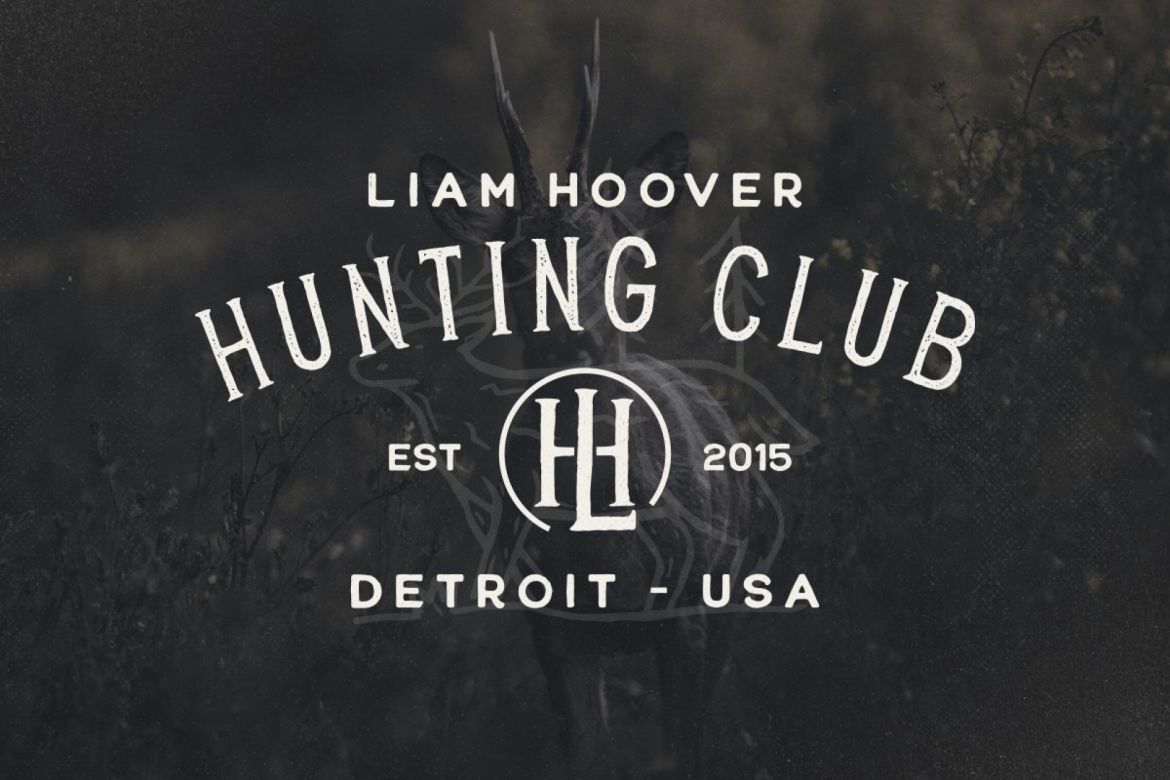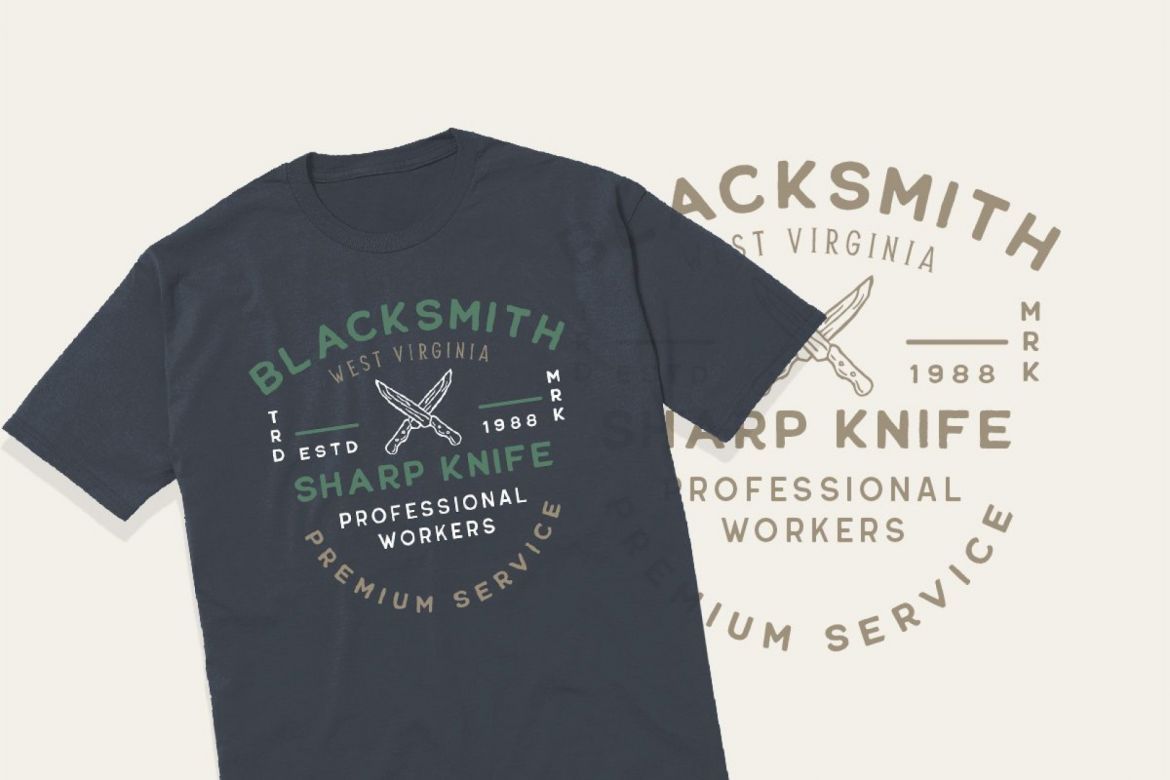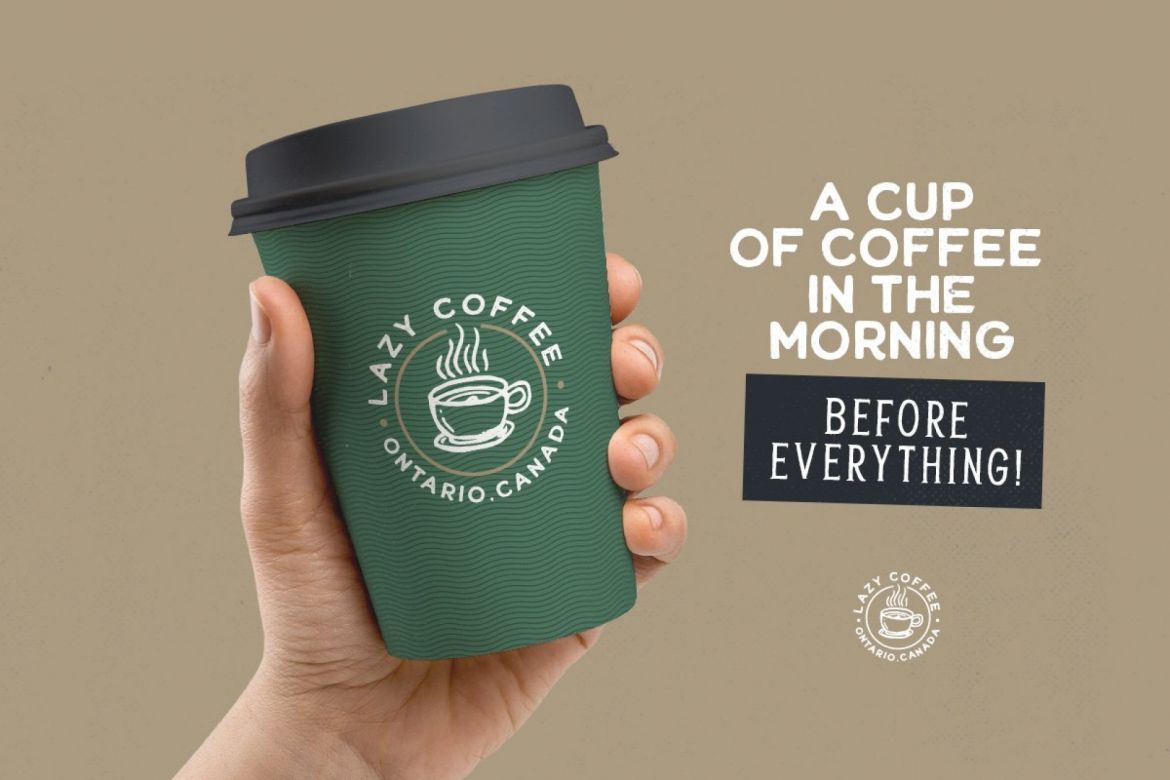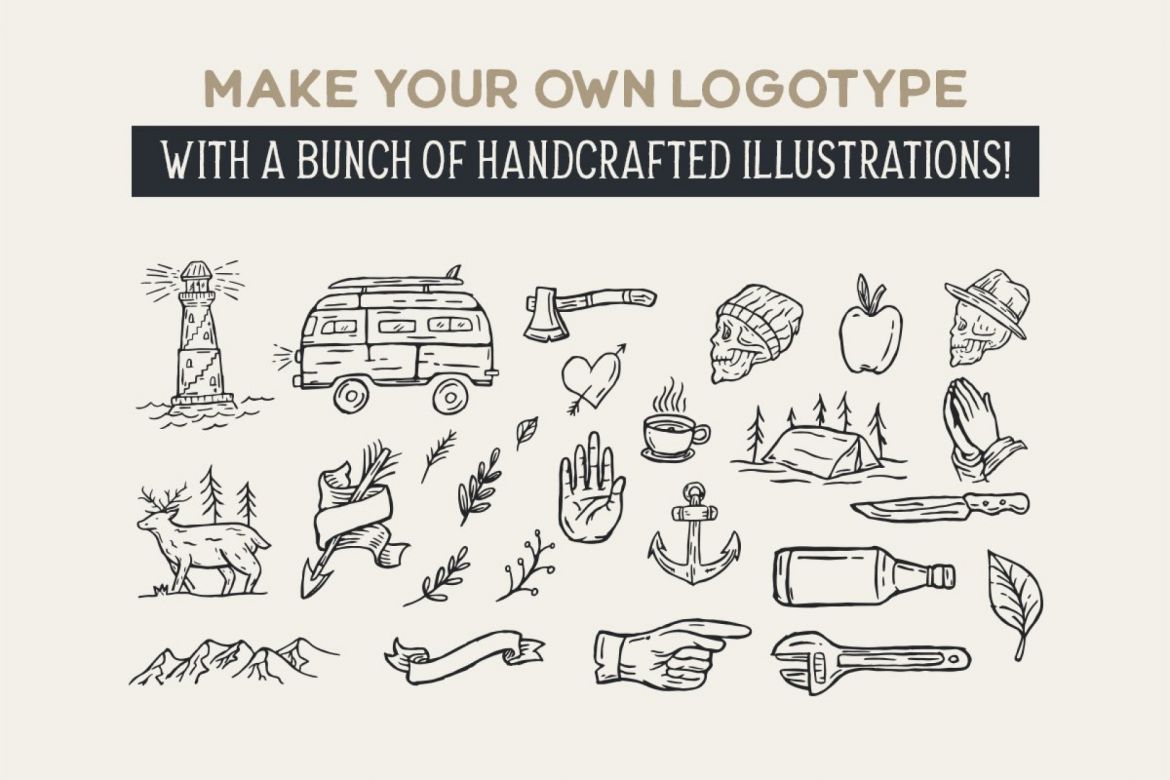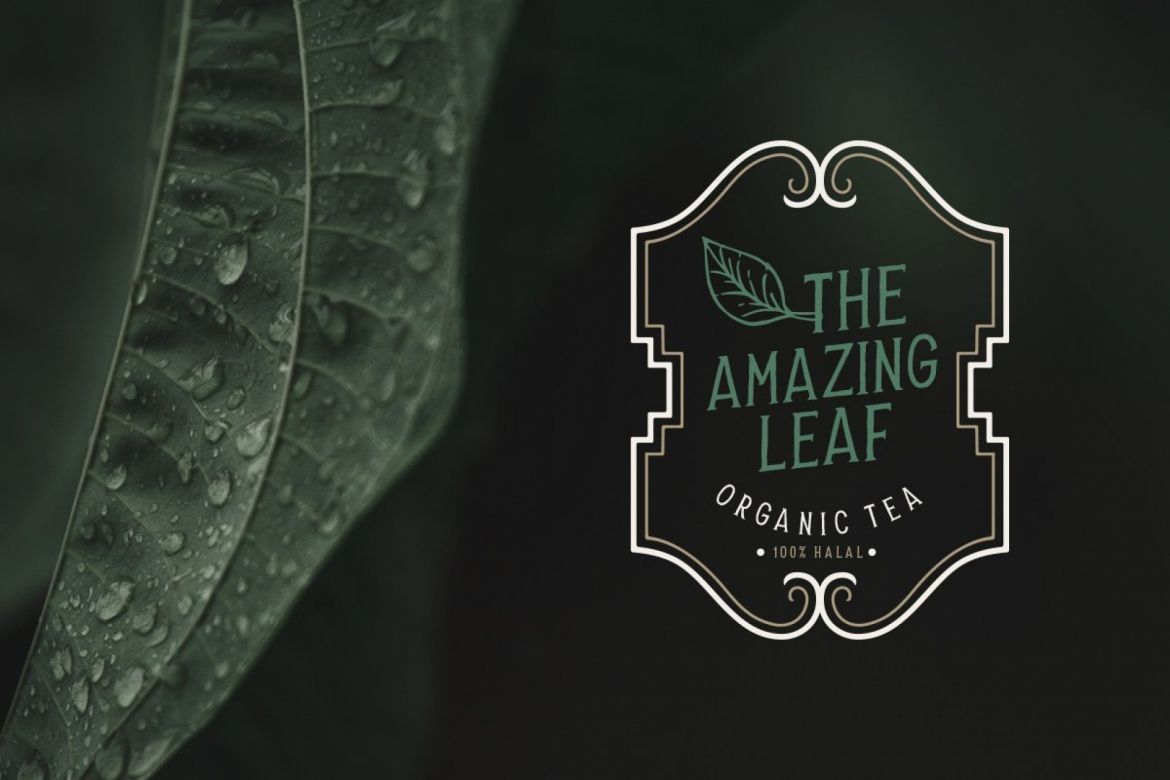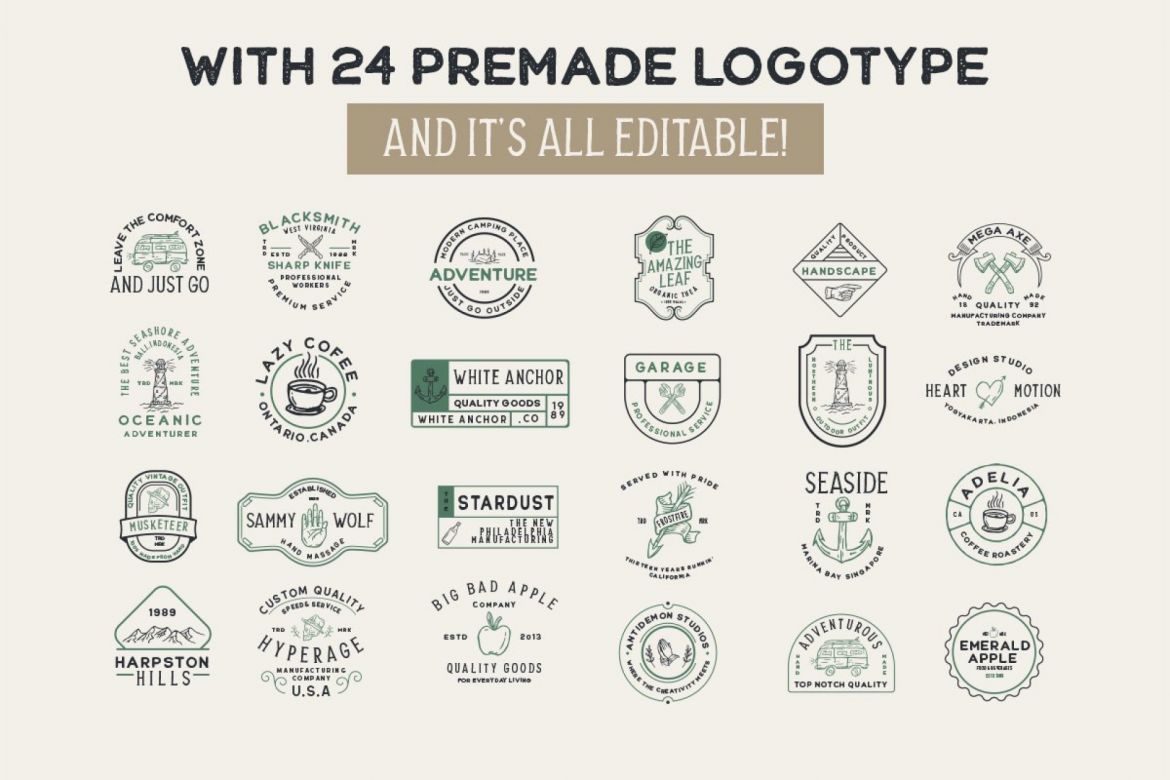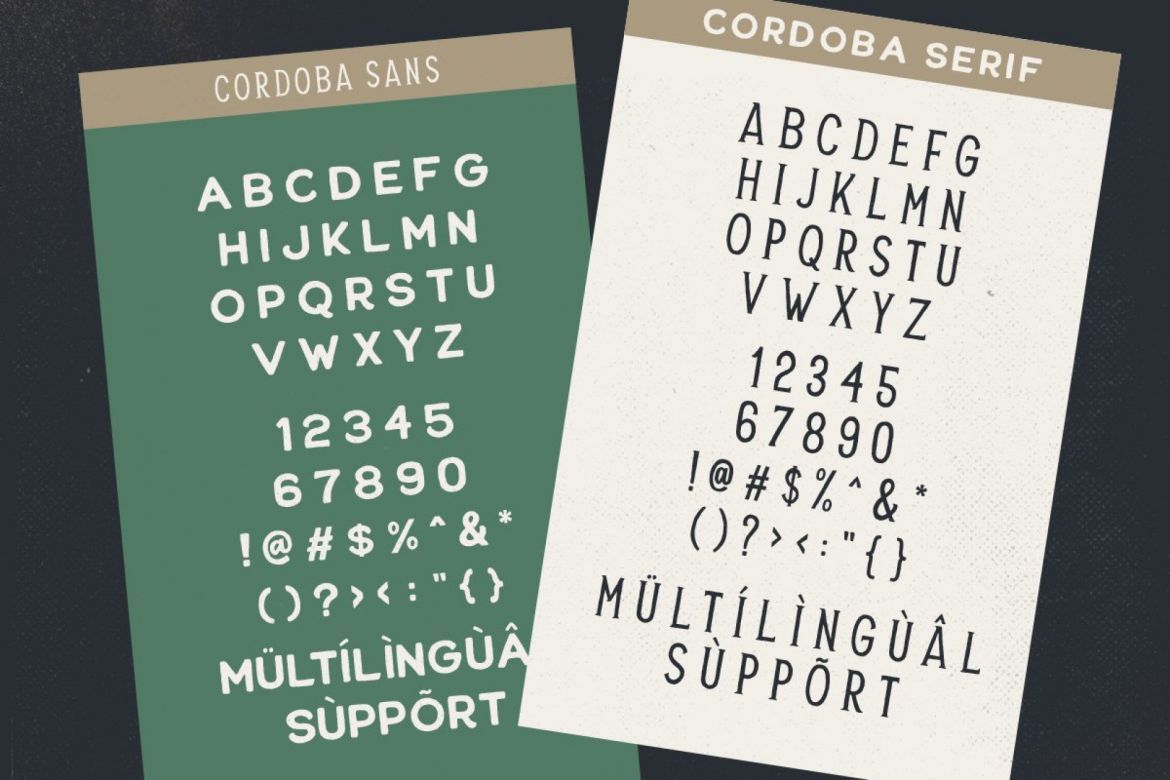
Cordoba - Font Duo
Cordoba - Font Duo (+EXTRA)
• suitable for branding logos, handwriting, or clothing designs.
• supports multilingual, numbers and symbols.